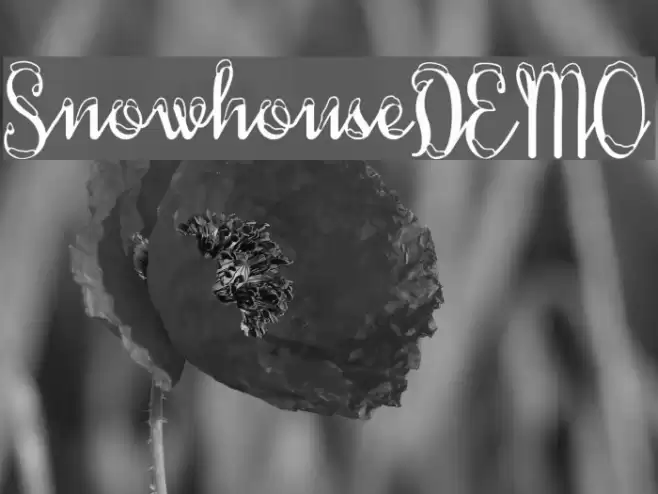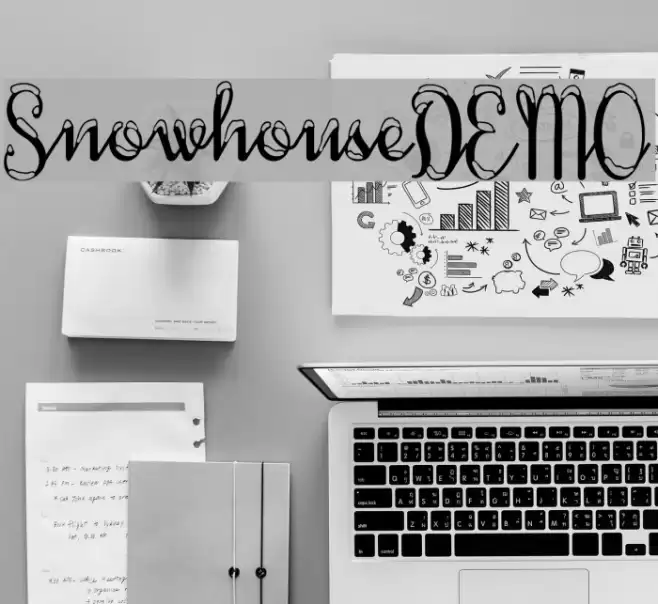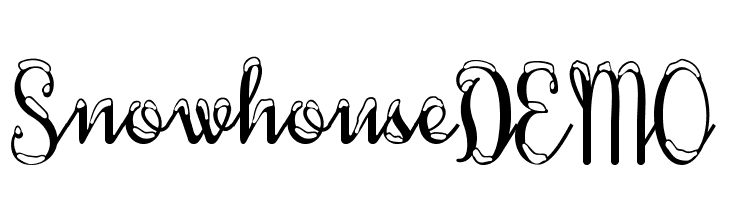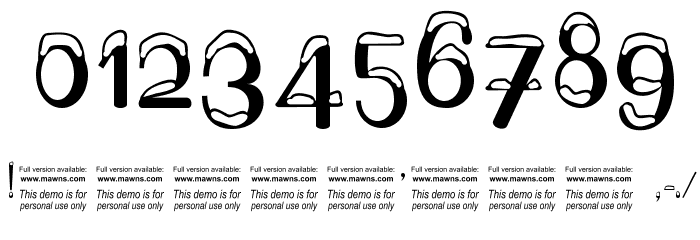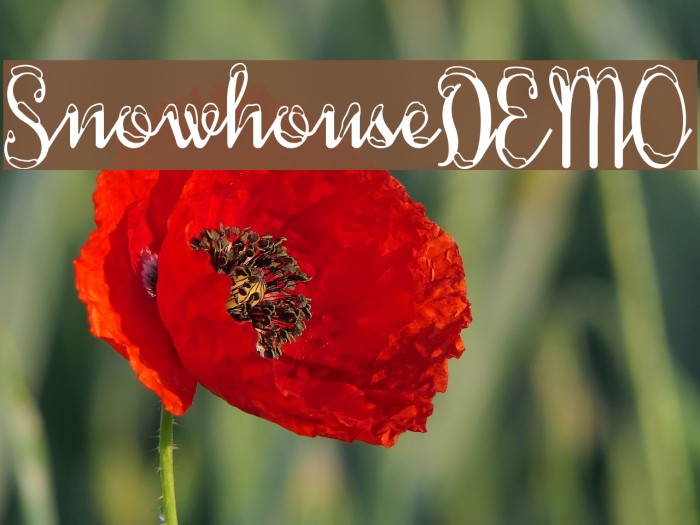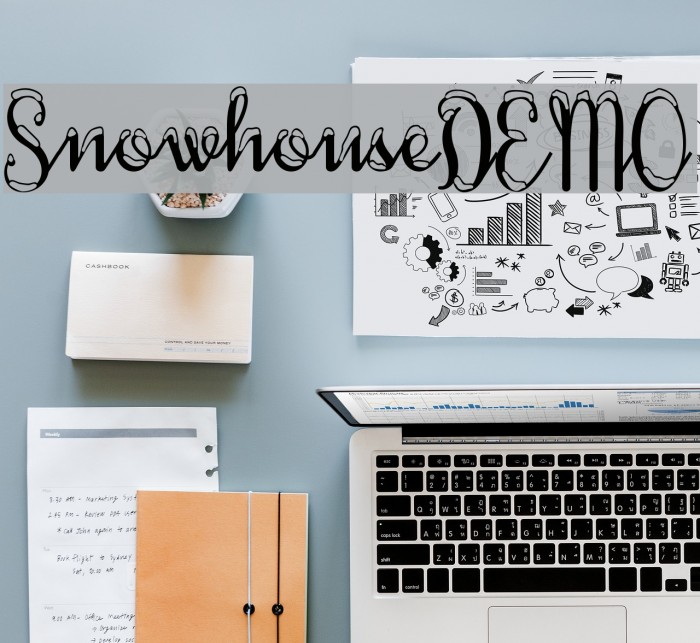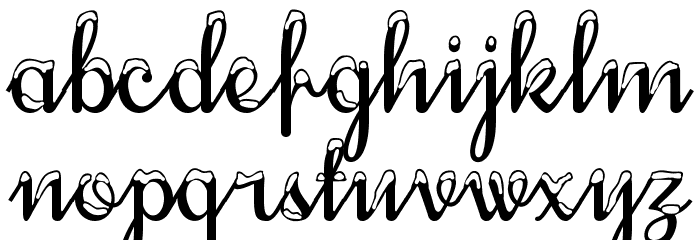
SnowhouseDEMO Font
SnowhouseDEMO Description
This font features a unique and artistic script style, characterized by its flowing, interconnected letters that create a sense of elegance and fluidity. The uppercase letters exhibit a bold and decorative flair, with intricate loops and swirls that add a touch of sophistication. The lowercase letters maintain a consistent style, with smooth curves and a slightly slanted orientation, enhancing the overall graceful appearance. The numerals are bold and distinct, complementing the letterforms with their rounded shapes and clear legibility. Special characters are seamlessly integrated, maintaining the decorative theme. This font is ideal for projects that require a touch of elegance and creativity.
An elegant and artistic script font with flowing, interconnected letters and decorative flair from Uncategorized fonts.
- Proposed Projects: Ideal for wedding invitations, greeting cards, branding, and artistic projects that require a touch of elegance.
- Use Case: Logos, Headlines, Invitations